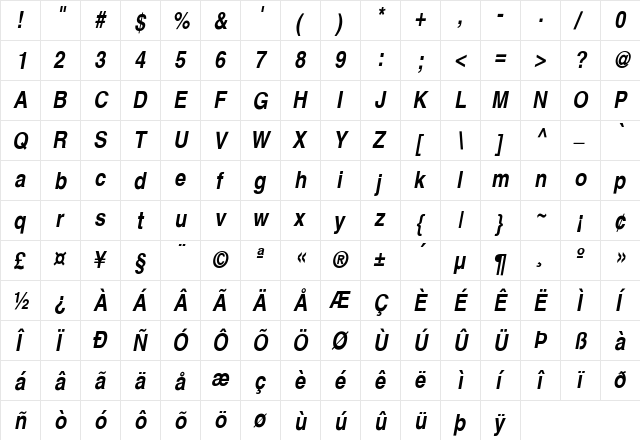
Halvorson-Thin-BoldObl Reg Regular
Design Context for Halvorson-Thin-BoldObl Reg Typeface
Halvorson-Thin-BoldObl Reg is a composed and adaptable typeface that performs quietly and consistently across a wide range of design contexts. The heavy weight commands attention and anchors typographic hierarchies.
Pro Tip: Pair Halvorson-Thin-BoldObl Reg with a font of contrasting weight or personality to build a more expressive typographic hierarchy.